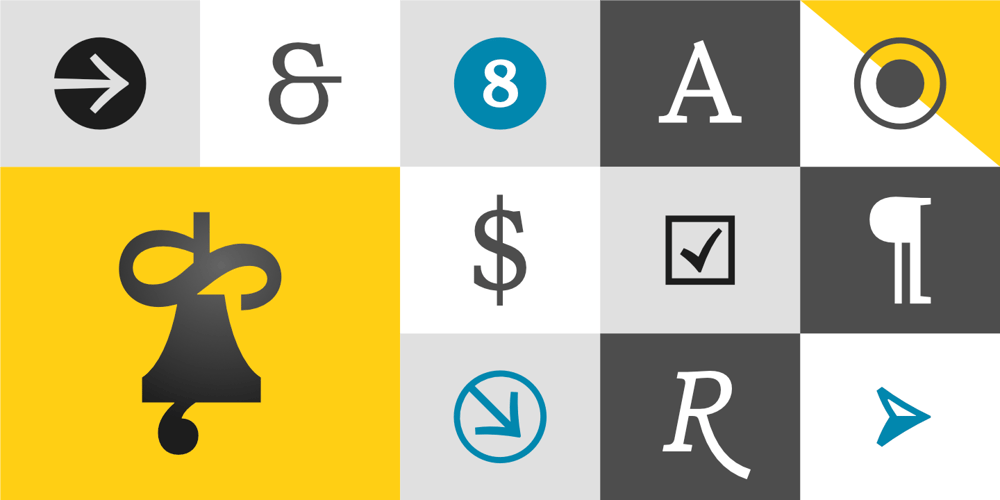
Rail
Rail font
Rail Font Family was designed by Marin Santic and published by Type Fleet. Rail contains 20 styles and family package options. Railgrandeur precision & leverageRail type family is a tough conveyance mechanism for large and lengthy information packages. It offers great reading comfort and avoids unnecessary friction. The precise construction of this slab serif signals greater legibility and capacity.Rail is designed to provide reading enjoyment. It’s suitable for complex typography projects like magazines and annual reports. The typeface’s x-height is approximately 68% of its capitals. The italics are constructed at a 11° angle.